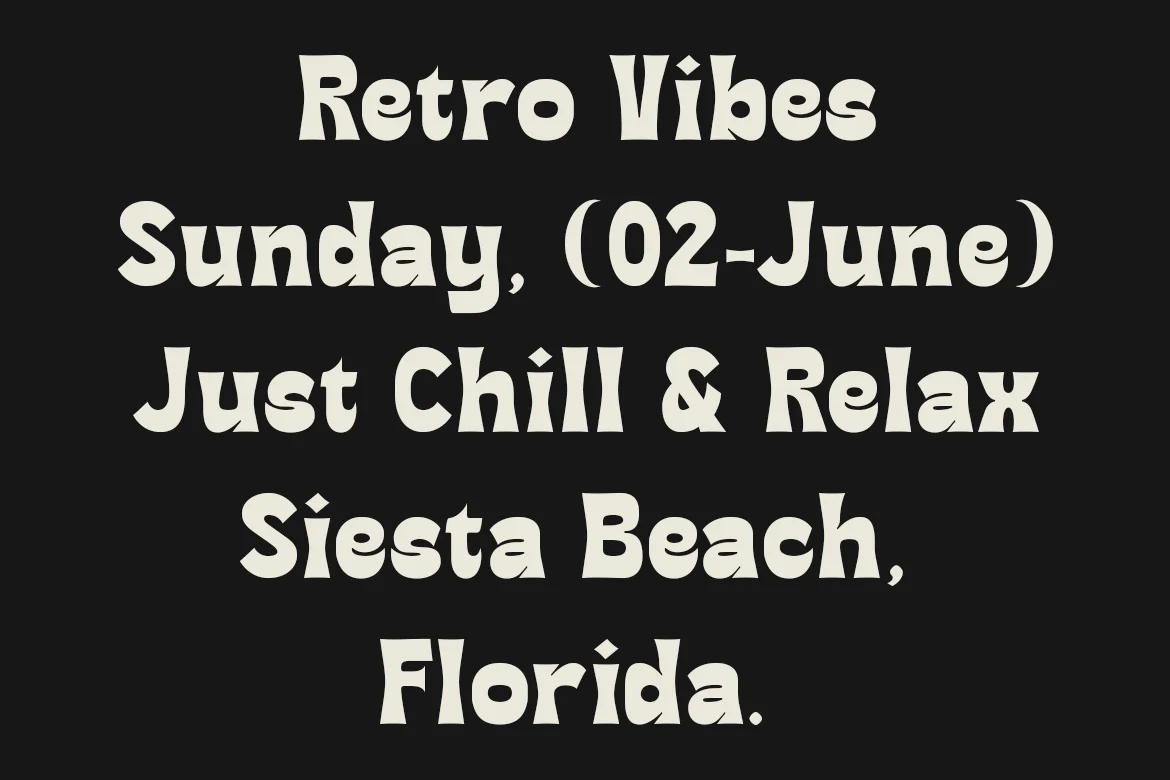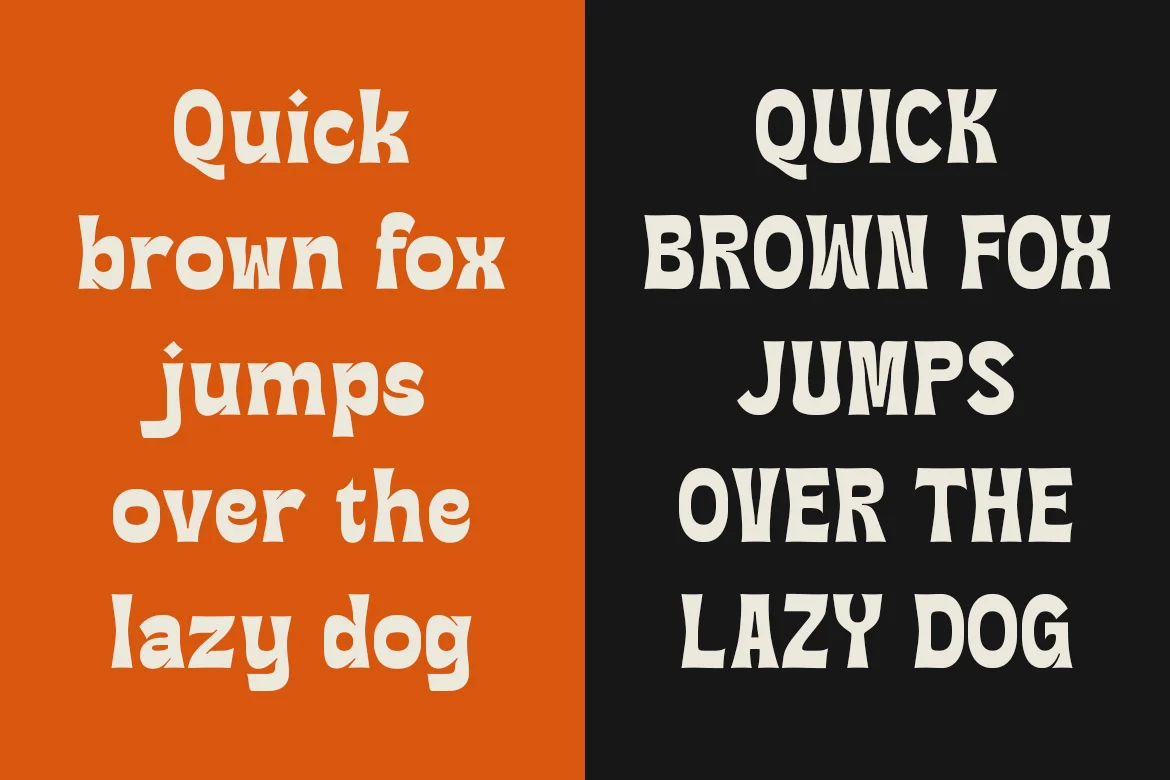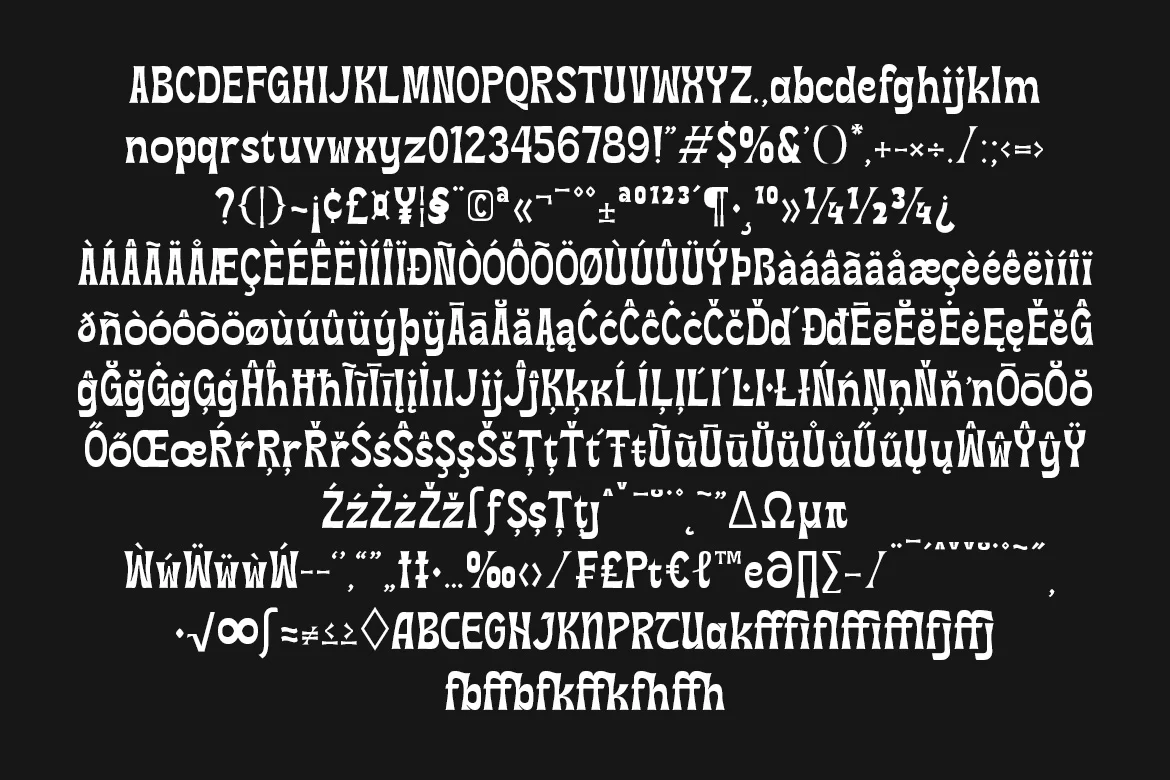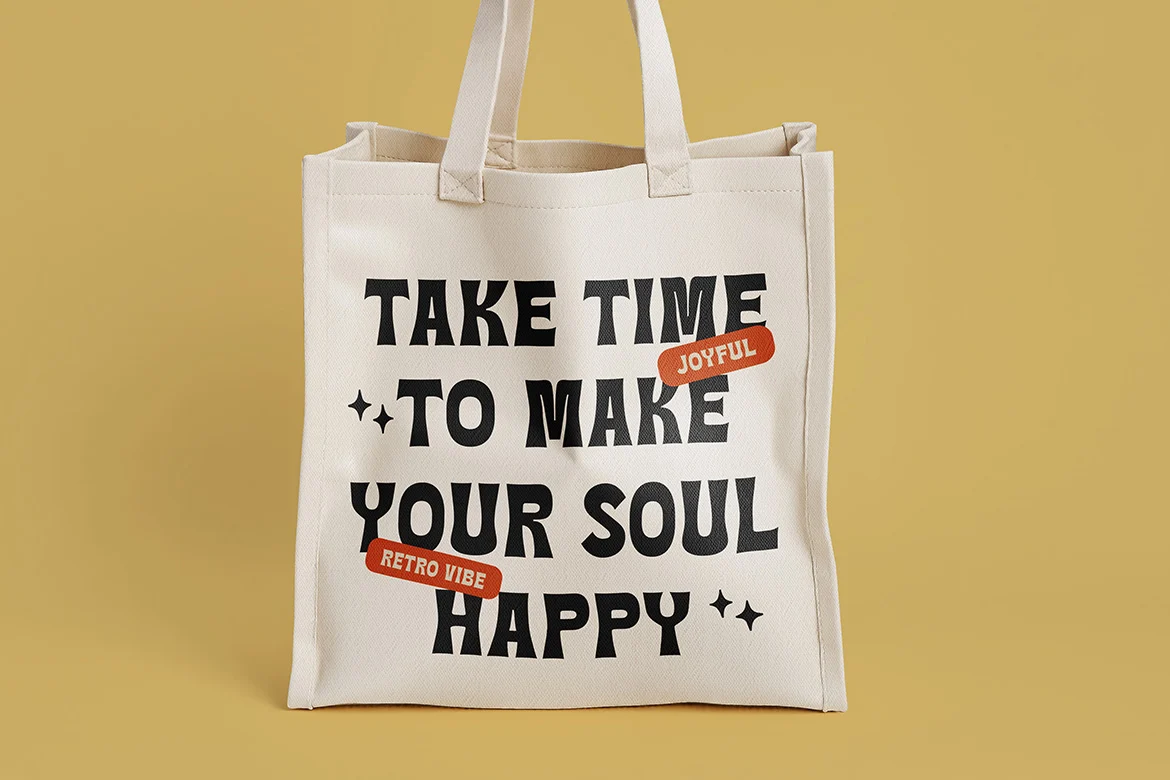
Baretro – Retro Variable Typeface Font
Baretro is a retro-themed font created to make your design more fun and add a cheerful and retro impression when using it, The font I created is meaningful & very versatile, suitable for various designs, elevating it to the highest level. Add this font to your favorite creative ideas and see the results!
Features: Uppercase, Lowercase, Alternate, Ligature, Numeric, & Multilingual Support
Variable : Regular, Medium, Semi Bold & Bold